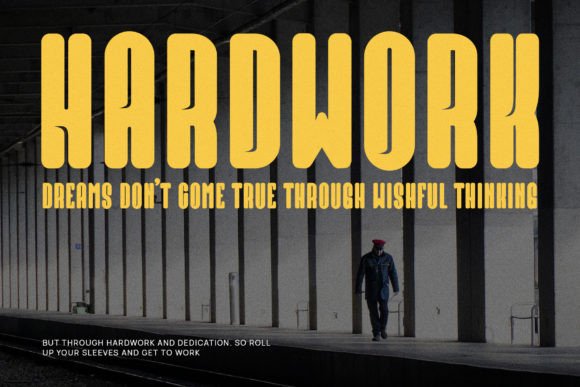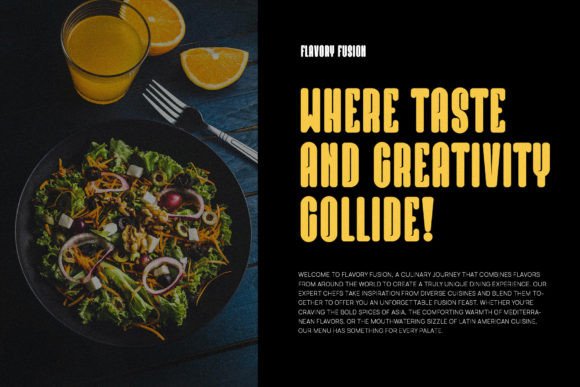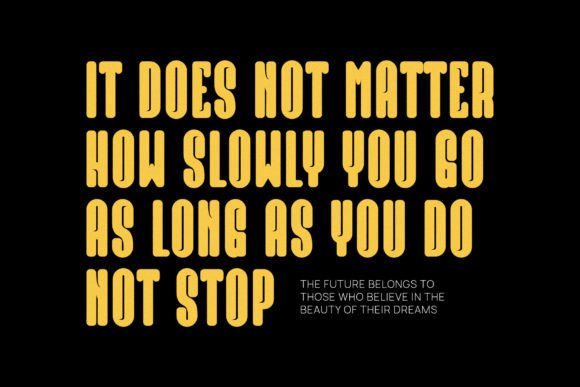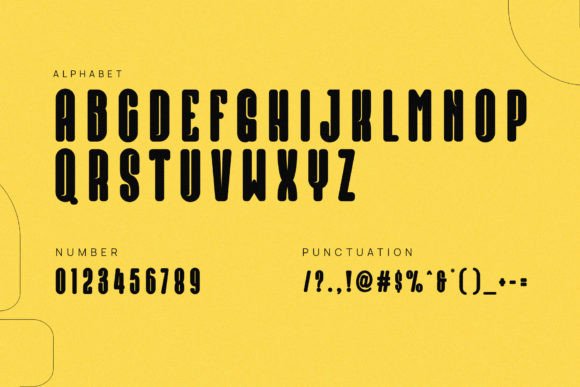
Introduction to Sandeg Font
Have you ever been working on a creative project and struggled to find the perfect font that captures the essence of your vision? We’ve all been there, scrolling through endless font options, hoping to stumble upon that one perfect match. But what if I told you there’s a font that not only meets but exceeds your expectations? Enter the Sandeg Font, a game-changing design resource that’s about to revolutionize the way you approach typography.
With its unique blend of inspiration, the Sandeg Font offers a symmetrical and balanced rhythm that’s sure to elevate any design. Whether you’re working on a high-quality brochure, creating a stunning logo, or crafting an eye-catching poster, this font is the perfect companion for your creative endeavors. And the best part? It’s available for free download, making it an accessible and valuable resource for designers of all levels.
Key Features of Sandeg Font
- Unique, elegant font with a transparent background, perfect for adding a touch of sophistication to your design
- Designed with a clean and minimalist aesthetic, making it an ideal choice for modern design projects
Honest Review: Sandeg Font
As a designer, I’m always on the lookout for high-quality design resources to enhance my creative projects. The Sandeg Font has been a recent addition to my arsenal, and I’m excited to share my honest review.
What works well is the sleek, modern design of the font, which is perfect for contemporary projects. The clean lines and minimalist aesthetic make it an excellent choice for digital designs, such as website headers or social media graphics. I also appreciate the transparent background option, which allows for seamless integration with various design elements.
- ✨ Suitable for modern, digital designs
- ✨ Clean lines and minimalist aesthetic
- ✨ Transparent background option
While the Sandeg Font is an excellent design resource, there are some limitations to consider. The font may not be suitable for traditional or vintage-inspired designs, as it lacks the ornate details and flair of more classic fonts.
- ⚠️ Limited suitability for traditional or vintage designs
- ⚠️ May require additional design elements to achieve desired look
Overall, I’m impressed with the Sandeg Font’s quality and versatility. It’s an excellent choice for designers working on modern, digital projects, and its free download option makes it a valuable resource for designers of all levels.
Sandeg Font is a high-quality, versatile design resource ideal for creative projects that require a unique and eye-catching style. With a transparent background, this font is perfect for adding a touch of elegance to your designs.
Tips for Getting the Most Out of Sandeg Font
Here are some tips for getting the most out of Sandeg Font:
- Combine Sandeg Font with other design elements to create a unique and eye-catching design.
- Use the transparent background feature to create a sense of depth and dimension.
Sandeg Font is ideal for a variety of creative projects, including: